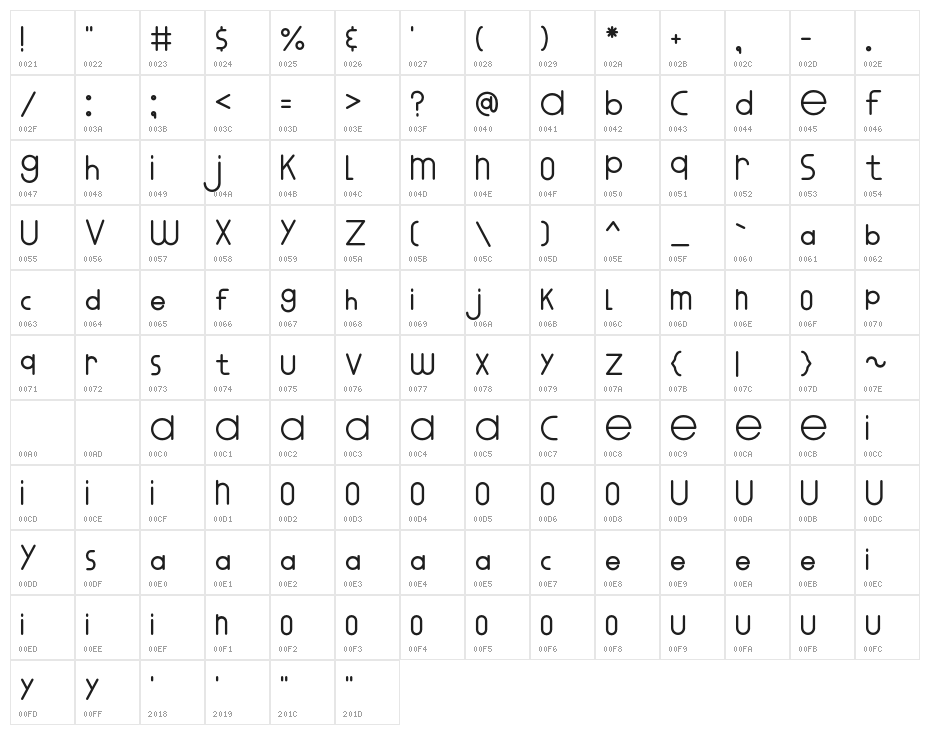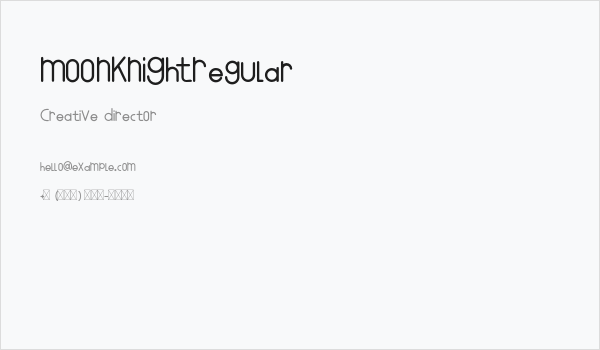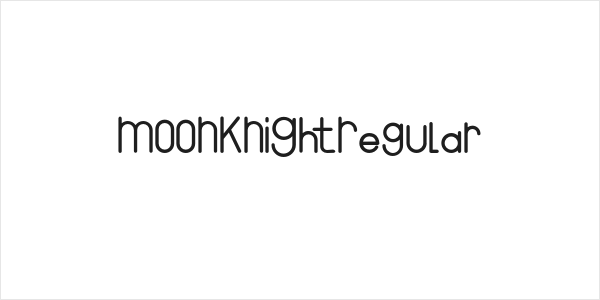
MOONKNIGHTRegular Font
MOONKNIGHTRegular Description
This font features a clean and modern design with rounded edges that give it a friendly and approachable appearance. The characters are evenly spaced, providing a balanced and harmonious look. The uppercase and lowercase letters maintain a consistent style, with smooth curves and a uniform stroke width. The numerals and special characters are designed to match the overall aesthetic, ensuring a cohesive appearance across all text elements. This font is versatile and can be used in various design projects where a contemporary and inviting feel is desired.
Proposed ProjectsIdeal for branding, advertising, children's books, and digital interfaces.